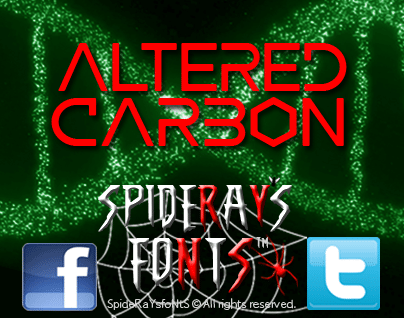
I created this Altered Carbon Font based on the on the new dystopian Science Fiction series where if you have enough money you can live forever, backup your DNA into your hexagonal stack and cast into which ever body you choose.
- Designer: SpideRaYsfoNtS